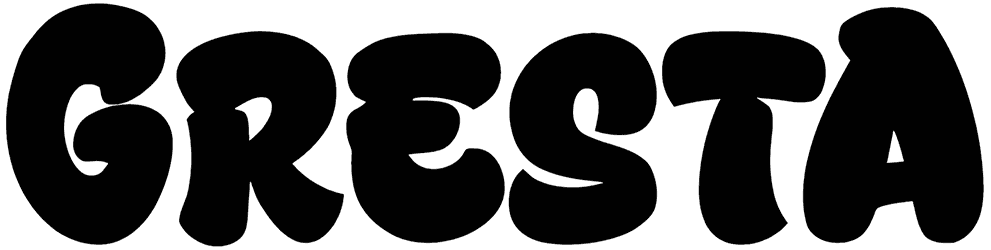
Gresta Font
If you want to create a bold, playful, and unusual style, you just need to know that nothing screams louder than Gresta. This balloon font, which does not include lowercase letters, can be at the top of your list for running controversial titles, animations, and computer games.
The two different styles of this font can give any project a childish and dynamic beauty that any audience will absolutely adore and can communicate within a fraction of a second.